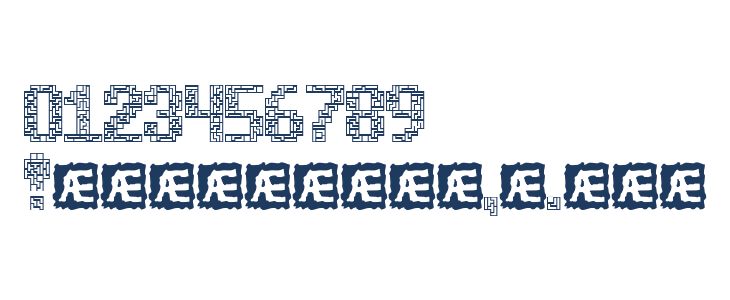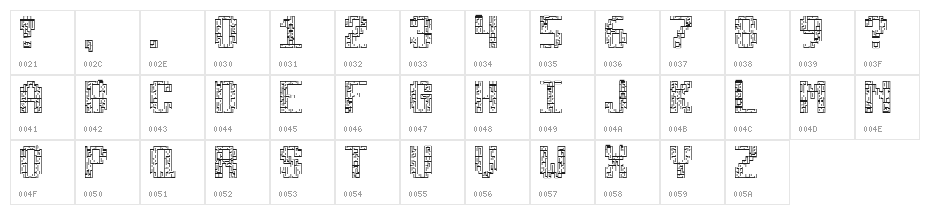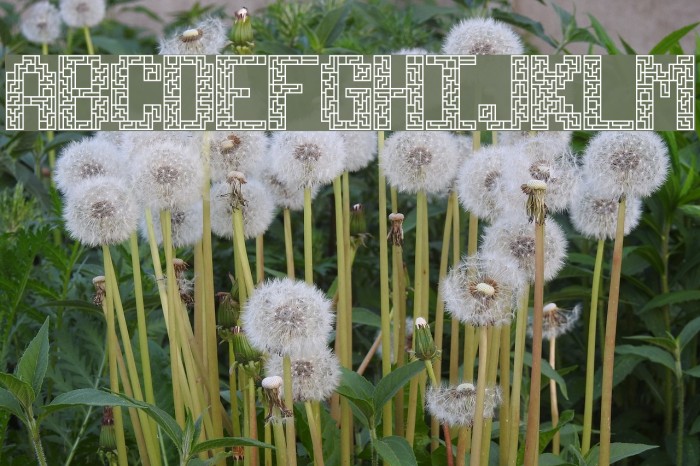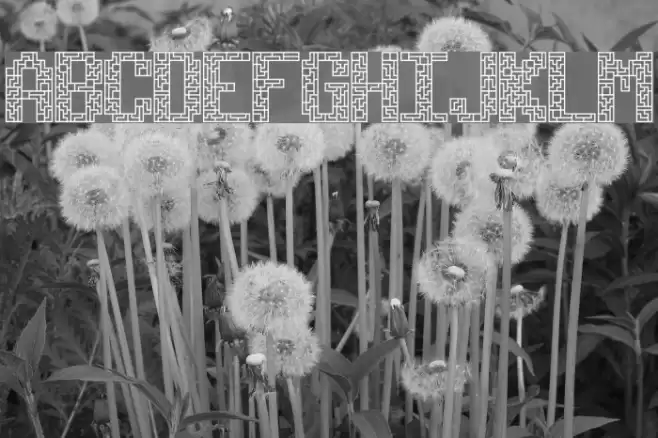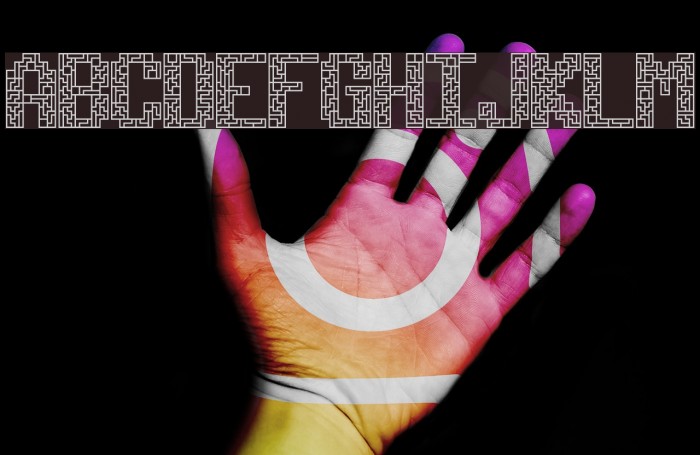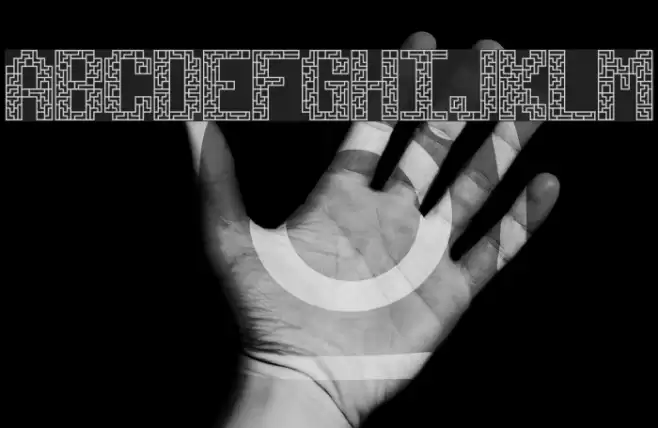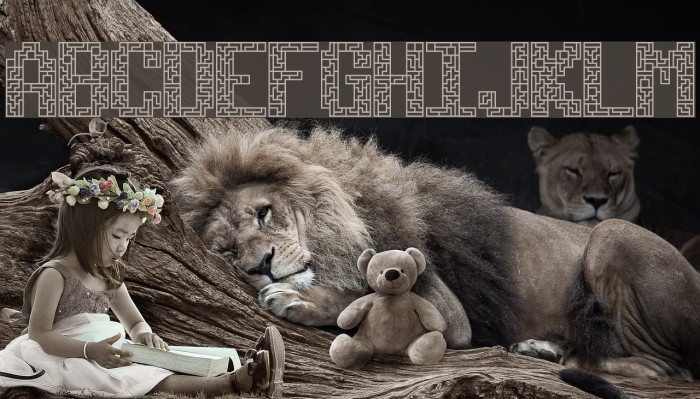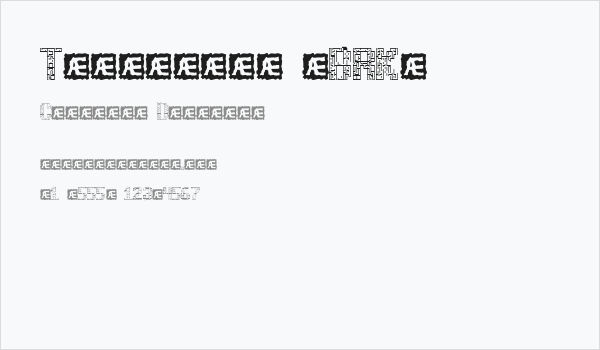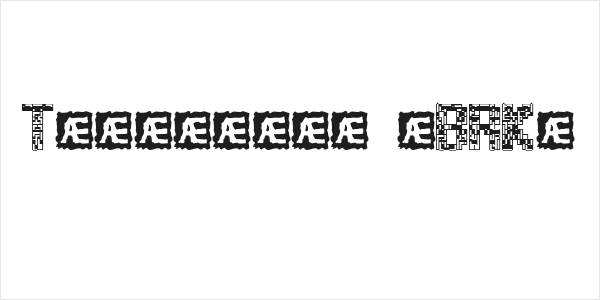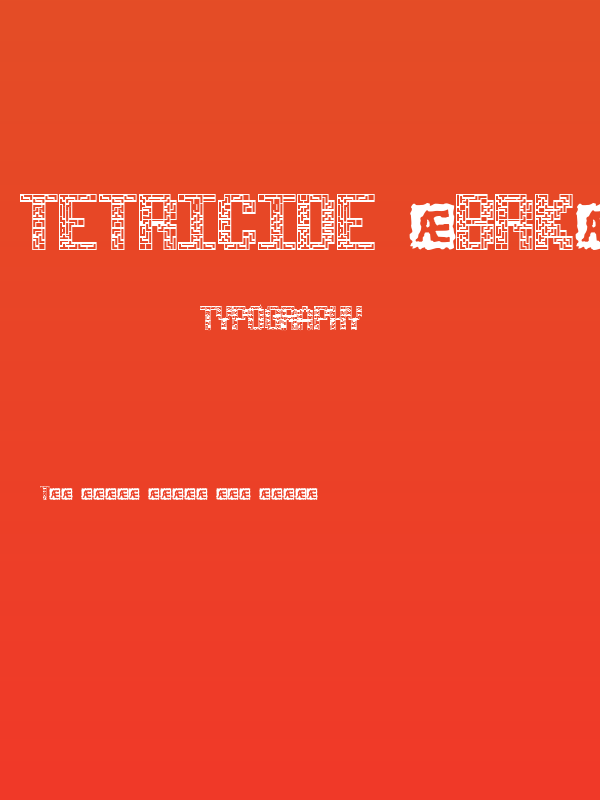
Tetricide [BRK] Font
Tetricide [BRK] Description
This font features a unique, geometric design reminiscent of puzzle pieces or a maze. Each character is constructed with a series of interconnected blocks, creating a highly stylized and decorative appearance. The uppercase letters are bold and striking, while the lowercase letters maintain the same intricate pattern. Numbers and special characters follow the same design principle, ensuring consistency across the entire typeface. The font's playful yet structured look makes it stand out, offering a modern twist on traditional block lettering.
| Proposed Projects | Ideal for video game titles, tech-themed posters, or any project requiring a modern, playful aesthetic. |